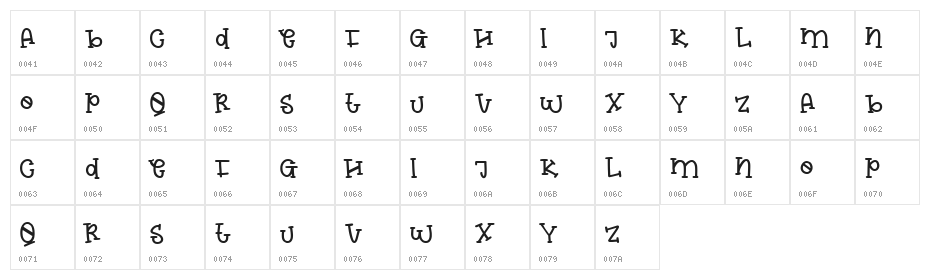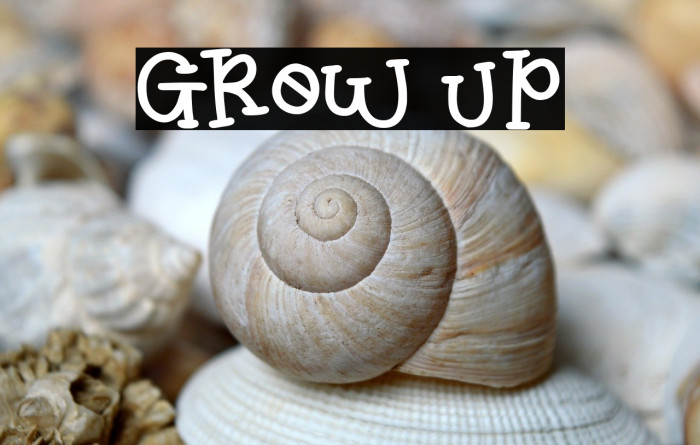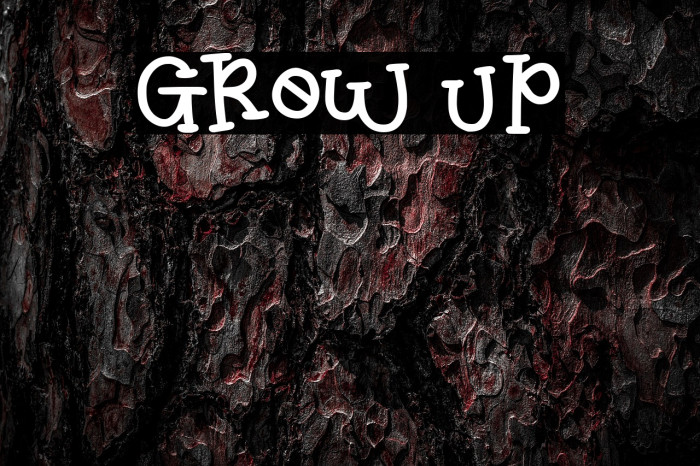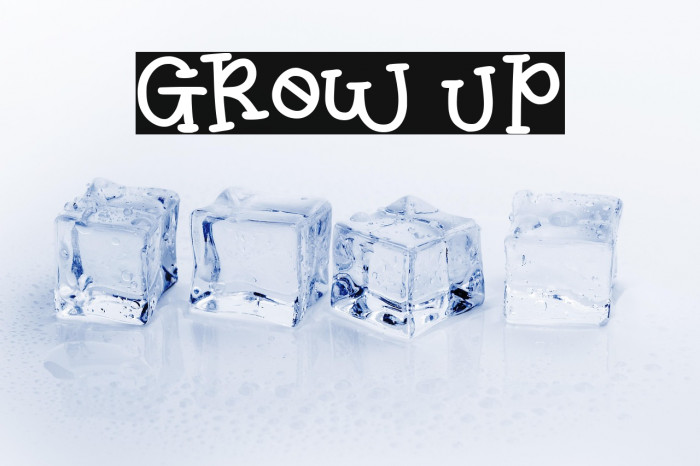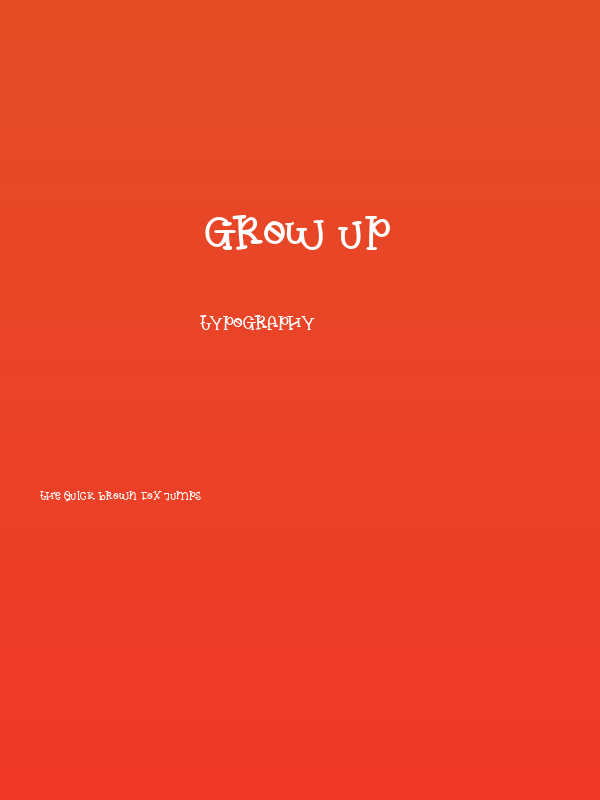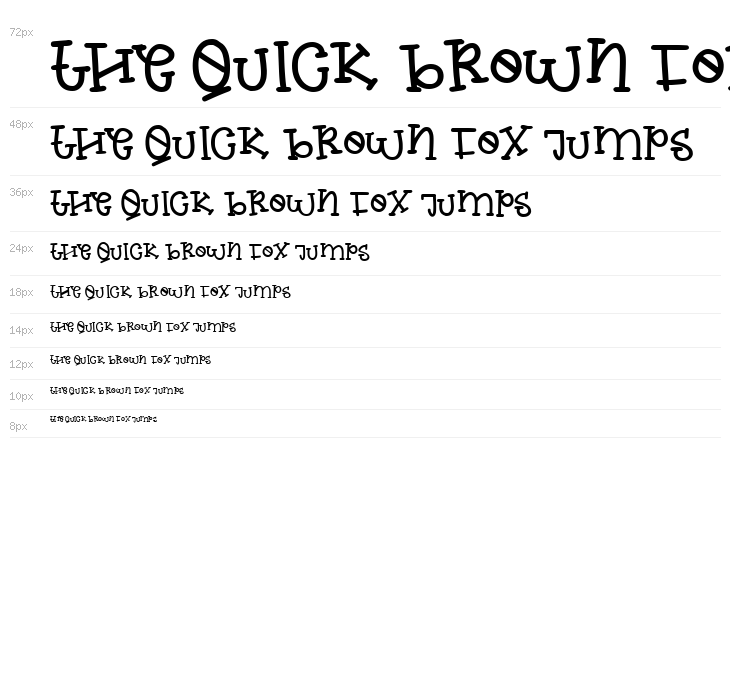
GROW UP Font
GROW UP Description
This playful and whimsical font features a unique, hand-drawn style with exaggerated curves and loops. The letters are bold and slightly irregular, giving them a lively and animated appearance. The font maintains a consistent thickness throughout, with rounded edges that soften its overall look. The characters are well-spaced, ensuring readability while maintaining its quirky charm. This font is perfect for projects that require a fun and informal touch, such as children's books, playful branding, or creative invitations.
| Proposed Projects | Ideal for children's books, playful branding, creative invitations, and casual posters. |